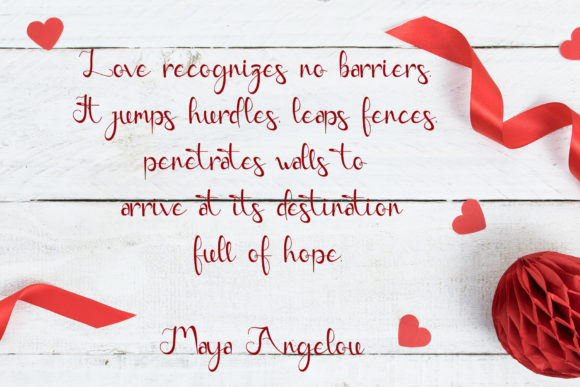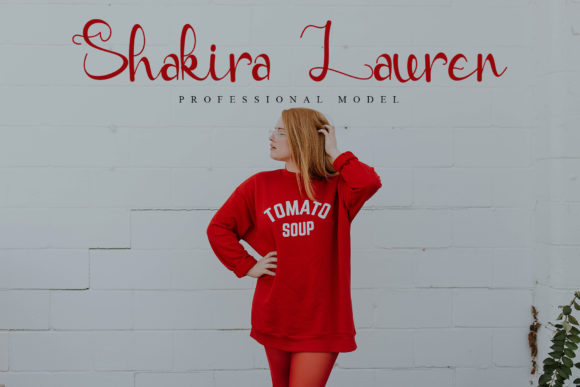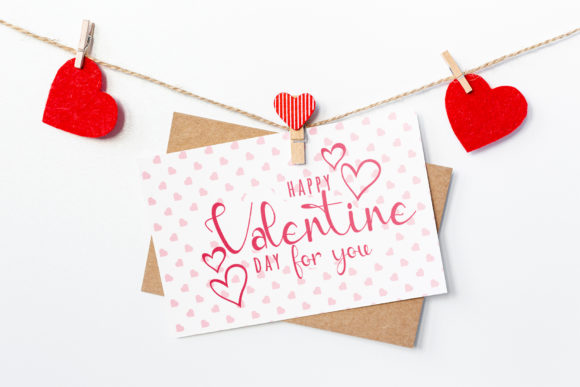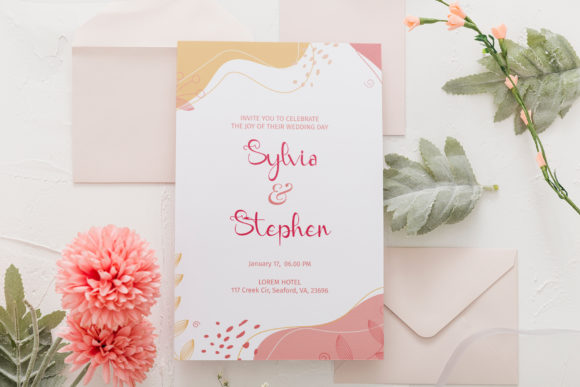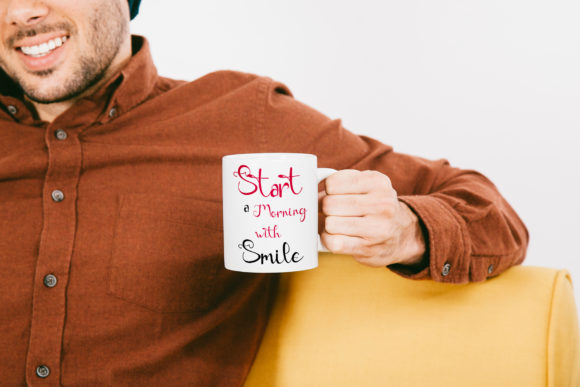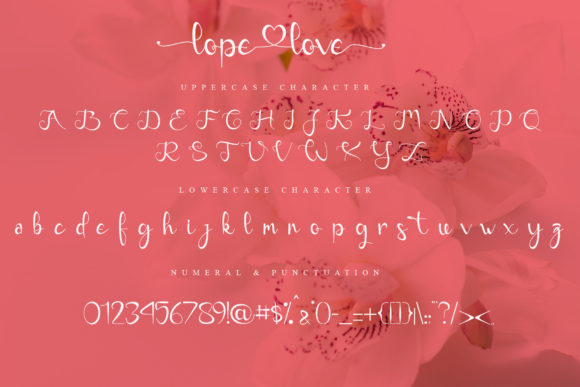
Introduction to Lope Love Font
Remember the moment when you found the perfect font to elevate your design project? It’s like striking gold in a treasure hunt – the excitement, the thrill, and the satisfaction of knowing you’ve found exactly what you need. For designers, discovering a high-quality font can be a game-changer, and that’s exactly what we’re excited to share with you today.
Meet the Lope Love Font, a beautiful light handwritten font that exudes luxury and sophistication. With its unique feel and stunning impact, this font is sure to add a touch of elegance to any design project you take on. Whether you’re working on a creative project or need a reliable design resource, the Lope Love Font is an excellent addition to your toolkit.
Key Features of Lope Love Font
- High-quality design resource ideal for creative projects, offering a unique and romantic feel.
- Unique characteristics include elegant script and cursive styles, perfect for adding a touch of romance to designs.
- Perfect for use in wedding invitations, valentines, and other romantic-themed projects, as well as in branding and marketing materials.
Honest Review: Lope Love Font
As a designer, I’m always on the lookout for high-quality design resources to elevate my creative projects. The Lope Love Font caught my attention with its unique charm and versatility.
Here are some aspects that I think work well for this font:
- ✨ Unique aesthetic: The Lope Love Font has a distinct personality that sets it apart from other fonts.
- ✨ High quality: The font is well-crafted, with clear and crisp lines that make it perfect for both digital and print designs.
However, I do have some limitations to mention:
- ⚠️ Limited font styles: While the font is available in a few different weights, it’s not a comprehensive font family.
Overall, I think the Lope Love Font is a great addition to any designer’s library. Its unique aesthetic and high quality make it perfect for creative projects that require a bit of personality. Just be aware of its limitations and consider those when making your design decisions.
Common Use Cases for Lope Love Font
Lope Love Font is suitable for various design projects, including blog posts, social media graphics, and marketing materials. Its transparent background makes it easy to layer with other design elements.
Is the Lope Love Font high quality and suitable for print use?
Yes, the Lope Love Font is a high-quality design resource, suitable for both digital and print use. The font has been designed to be clear and legible, even at small sizes. It’s an excellent choice for any creative project, from business cards to posters. The font’s transparent background also makes it easy to use in combination with other design elements.